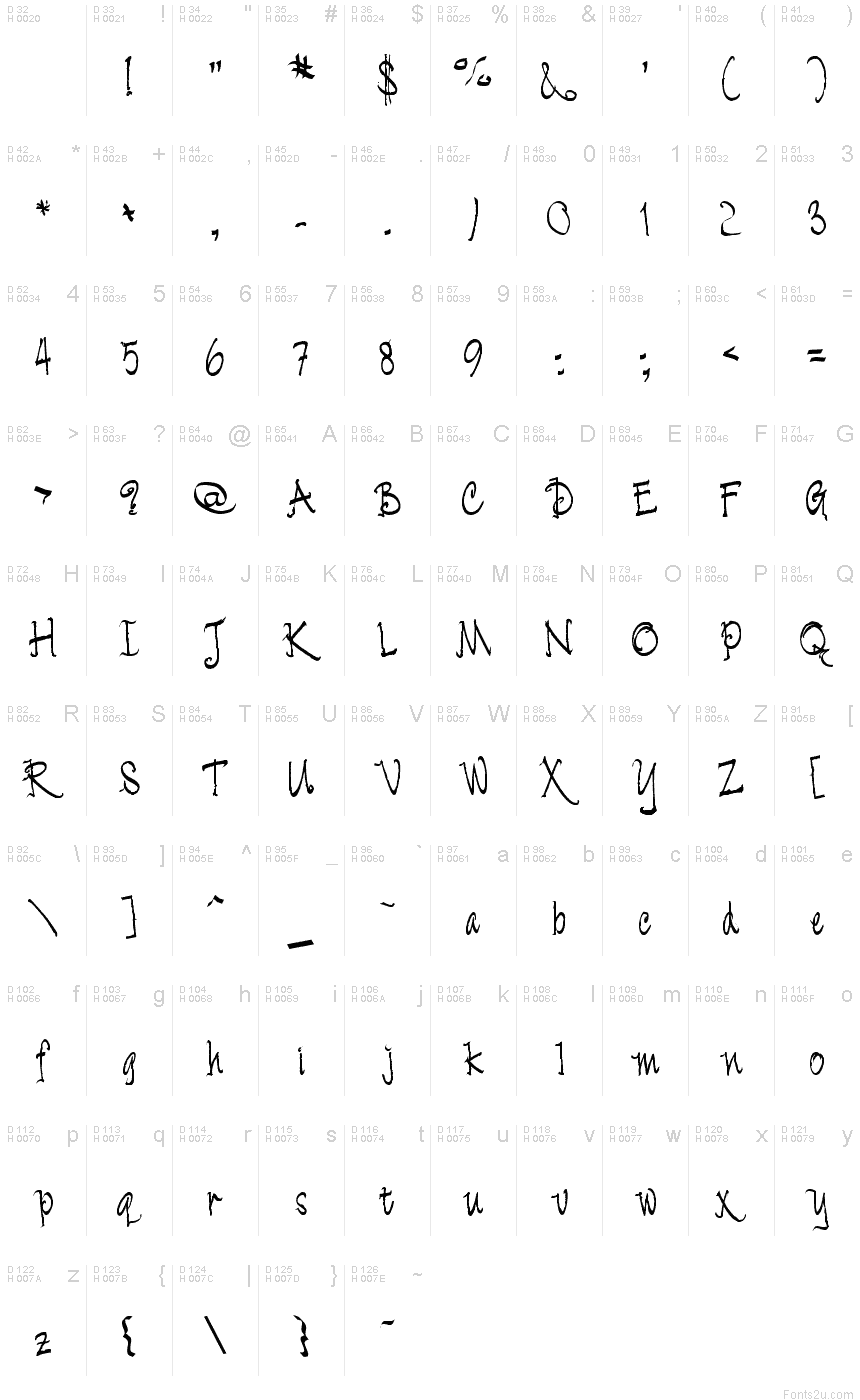
Cratch
Cratch font by Boogie Jack is a free handwritten script typeface. Its tall, wiry letters look like they’ve been scratched onto paper with a slightly dry pen, giving each word a restless, jittery energy. The strokes wobble just enough to feel human and a bit eerie, making even a single word look like a note torn from a sketchbook or an old journal.
This free font shines on Halloween invites, zines, handmade posters, moodier scrapbook pages, horror or mystery book covers, and quirky blog graphics. Using Cratch at larger sizes lets the rough, inky edges really show, while pairing it with a clean sans serif for body text keeps layouts readable and grounded.